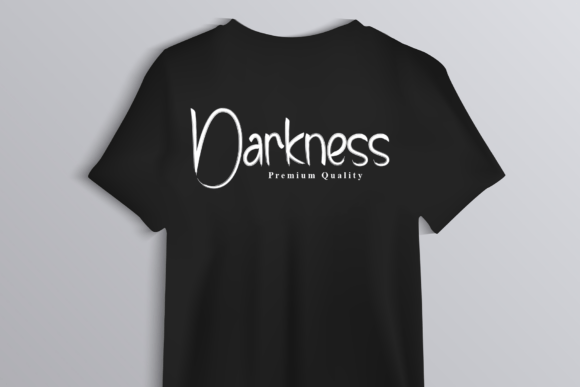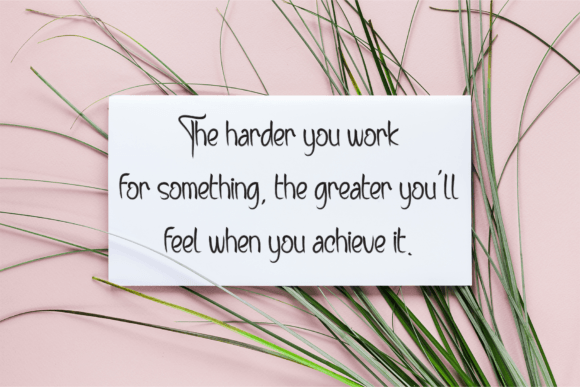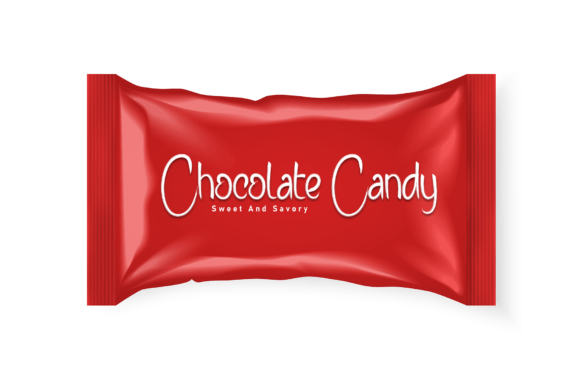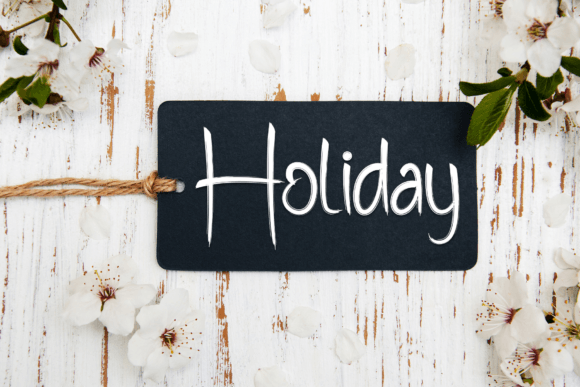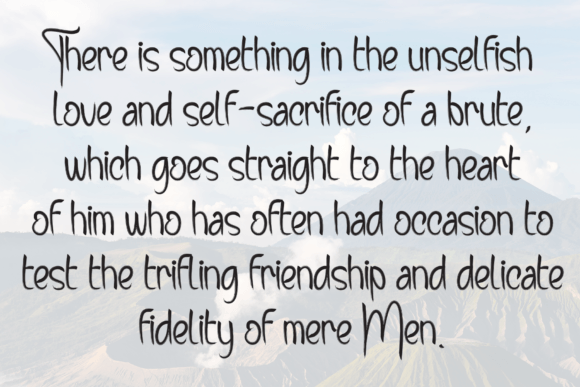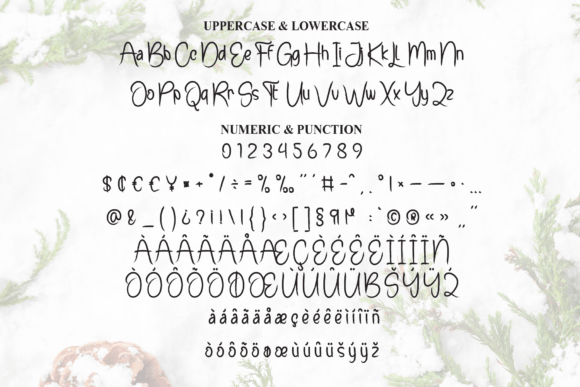
Introducing Brush Christmas Font: Add a Festive Touch to Your Holiday Projects
Are you looking for a unique and stylish font to make your holiday cards, decorations, or crafts stand out? Look no further than Brush Christmas Font! This fun and stylish handwritten font features a brush-like design that’s perfect for adding a festive and personal touch to your projects. With its smooth and flowing letters, Brush Christmas Font gives your creations a cheerful and creative look that’s sure to impress.
What is Brush Christmas Font?
Brush Christmas Font is a modern, handwritten font that’s specifically designed to capture the spirit of the holiday season. Its brush-like design gives it a distinctive, artistic look that’s reminiscent of traditional brush calligraphy. The font features smooth, flowing letters that are easy to read and fun to use. Whether you’re creating holiday cards, decorations, or crafts, Brush Christmas Font is the perfect choice for adding a personal and festive touch.
Key Features of Brush Christmas Font
- Brush-like design: Brush Christmas Font features a unique brush-like design that gives it a distinctive, artistic look.
- Smooth and flowing letters: The font’s smooth and flowing letters make it easy to read and fun to use.
- Festive and personal: Brush Christmas Font is perfect for adding a festive and personal touch to your holiday projects.
- Versatile: The font can be used for a wide range of projects, from holiday cards and decorations to crafts and more.
- Holiday cards: Use Brush Christmas Font to create personalized and festive holiday cards for your friends and family.
- Decorations: Add a festive touch to your holiday decorations with Brush Christmas Font. Use it to create signs, banners, and other decorative elements.
- Crafts: Brush Christmas Font is perfect for adding a personal touch to your holiday crafts, such as gift tags, ornaments, and more.
Tips and Tricks for Using Brush Christmas Font
Here are a few tips and tricks for getting the most out of Brush Christmas Font:
- Experiment with colors: Brush Christmas Font looks great in a variety of colors, so don’t be afraid to experiment and find the perfect hue for your project.
- Mix and match: Combine Brush Christmas Font with other fonts and design elements to create a unique and eye-catching look.
- Keep it simple: Don’t overcomplicate your design. Brush Christmas Font is perfect for simple, elegant designs that let the font shine.
Why Choose Brush Christmas Font?
There are many reasons to choose Brush Christmas Font for your holiday projects. Here are a few:
- Unique and stylish: Brush Christmas Font is a unique and stylish font that’s sure to make your projects stand out.
- Versatile: Brush Christmas Font can be used for a wide range of projects, from holiday cards and decorations to crafts and more.